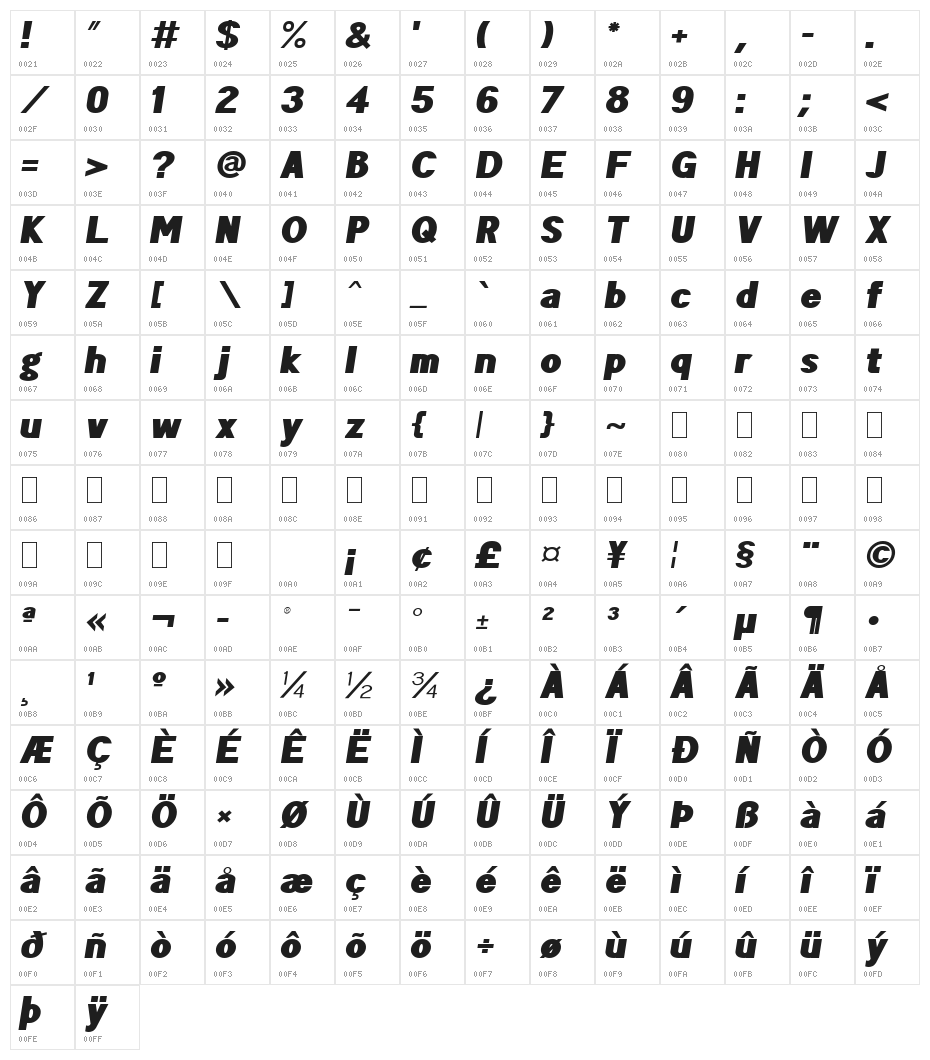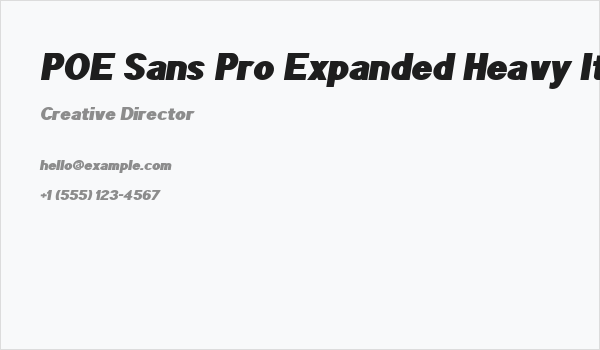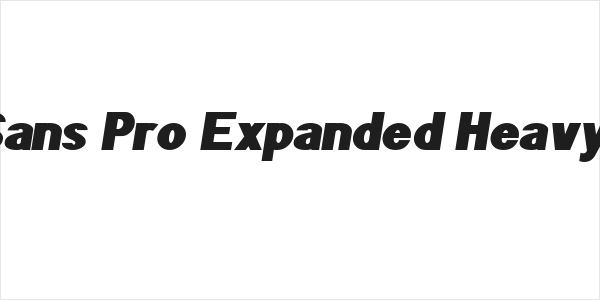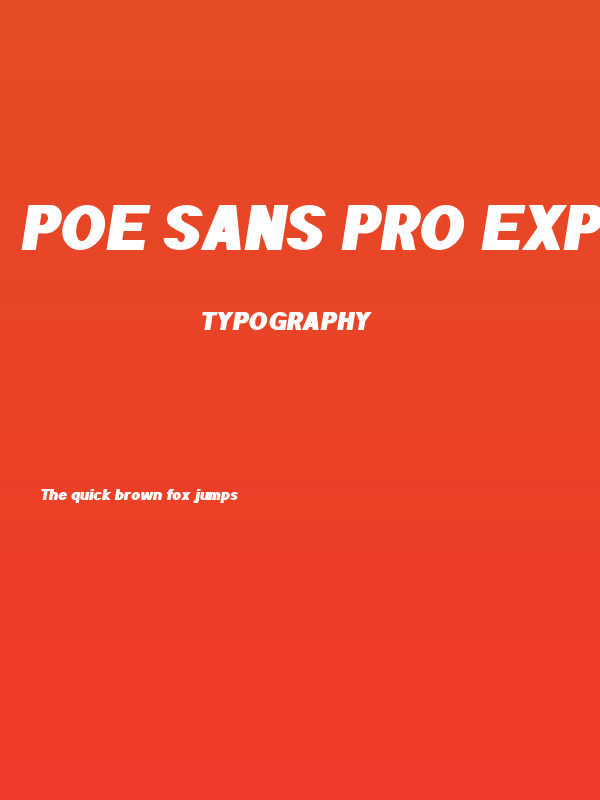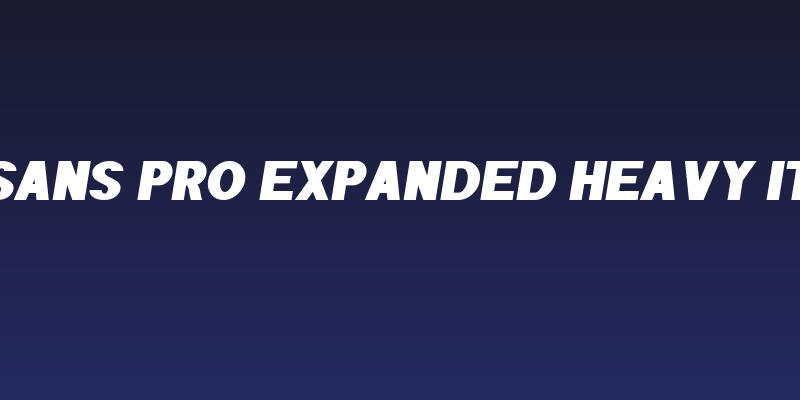
POE Sans Pro Expanded Heavy Italic Font
POE Sans Pro Expanded Heavy Italic Description
This typeface features a bold and commanding presence with its heavy weight and italic style. The expanded width gives it a strong, impactful look, making it ideal for attention-grabbing headlines and titles. The sans-serif design ensures a modern and clean appearance, while the italic slant adds a dynamic and energetic feel. The characters are well-defined with consistent stroke thickness, providing a uniform and cohesive look. The spacing between characters is tight, enhancing the compact and robust nature of the font. Its versatility makes it suitable for various design projects that require a bold statement.
| Proposed Projects | Ideal for headlines, advertising, branding, posters, and any design needing a strong visual impact. |